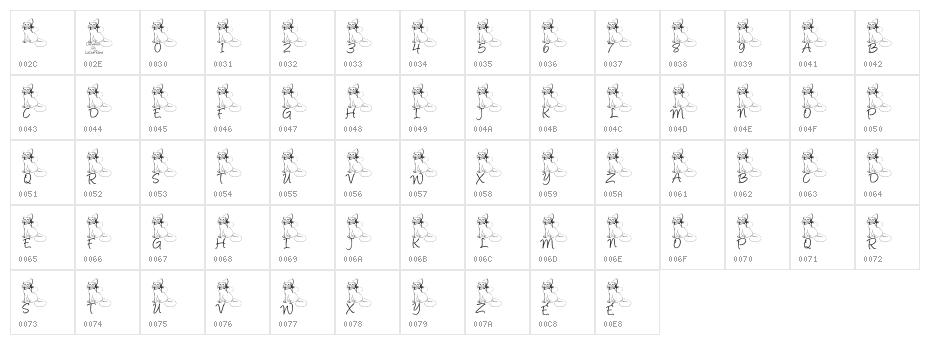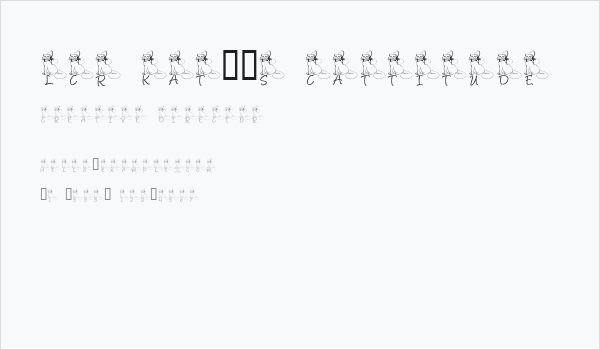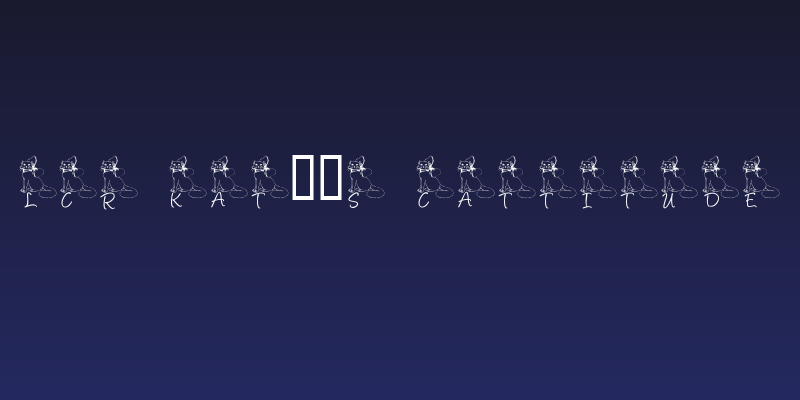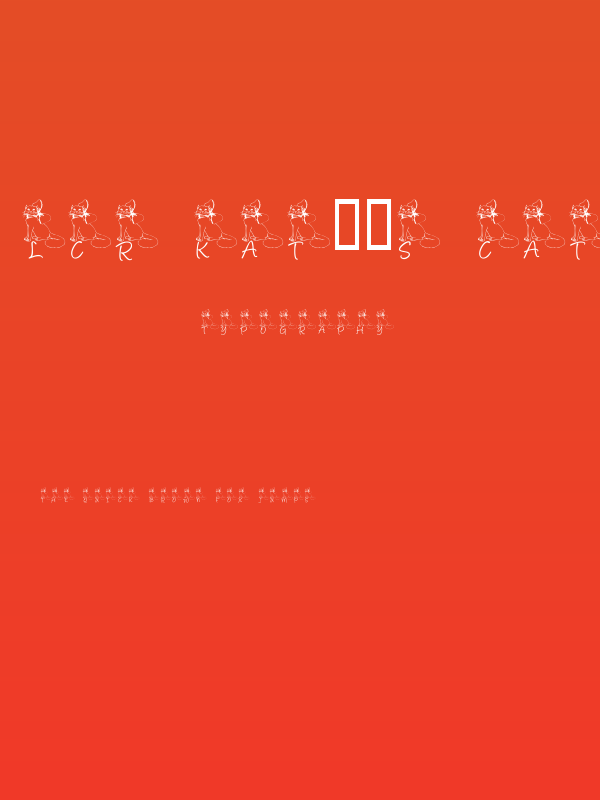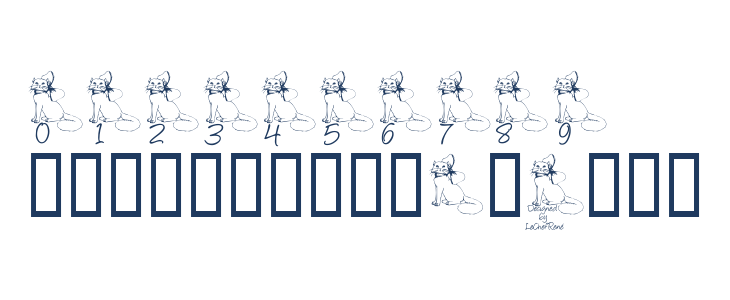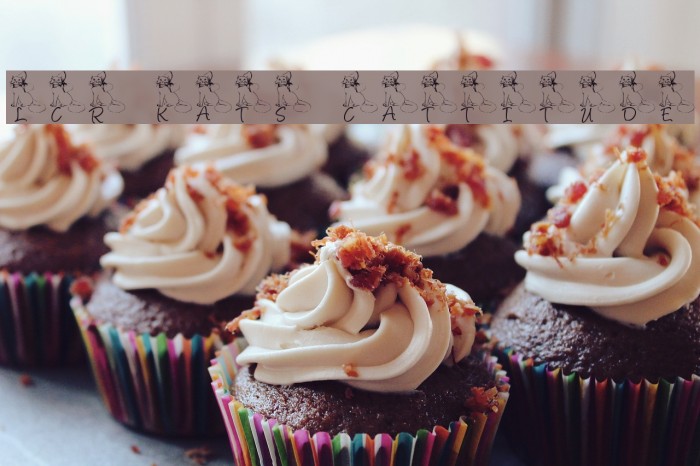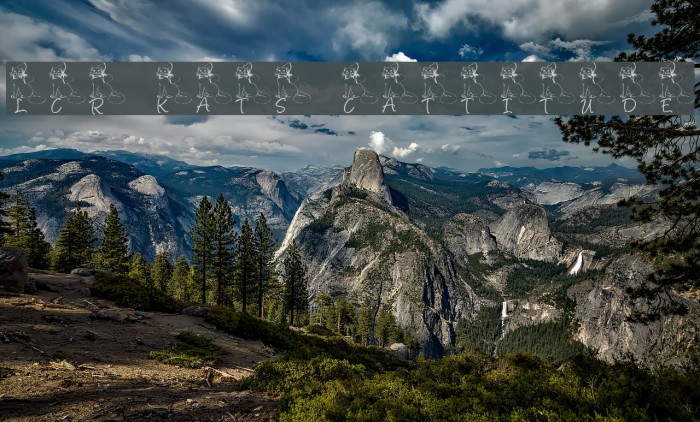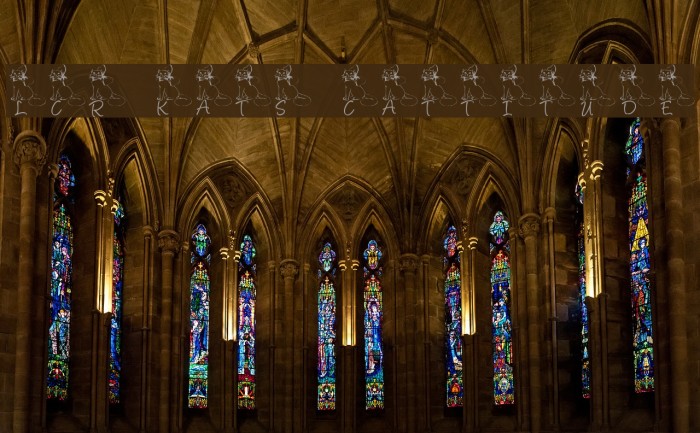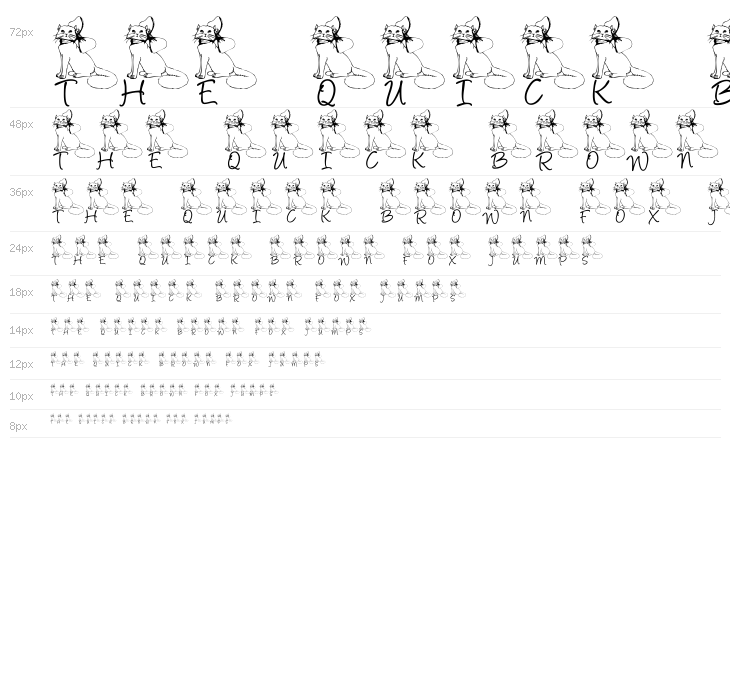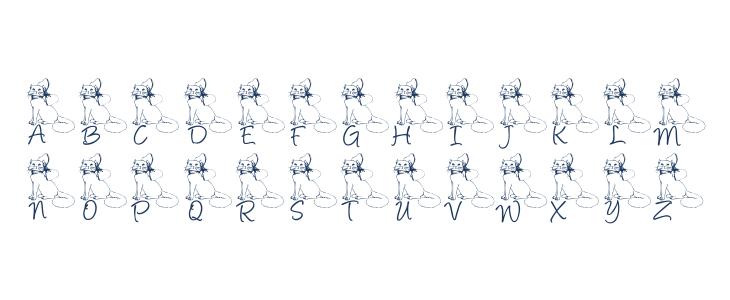
LCR Kat's Cattitude Font
LCR Kat's Cattitude Description
This whimsical font features a playful cat illustration integrated with each character, creating a unique and charming design. The letters are handwritten with a casual, flowing style that adds a touch of personality and fun. The uppercase and lowercase letters maintain a consistent style, while the numbers and special characters are equally adorned with the delightful cat motif. This font is perfect for projects that require a lighthearted and creative touch, such as children's books, playful branding, or greeting cards. The overall design is both decorative and functional, making it a versatile choice for various creative endeavors.
| Overall Style | Whimsical, Playful, Decorative |
| Proposed Projects | Ideal for children's books, playful branding, greeting cards, and creative projects. |